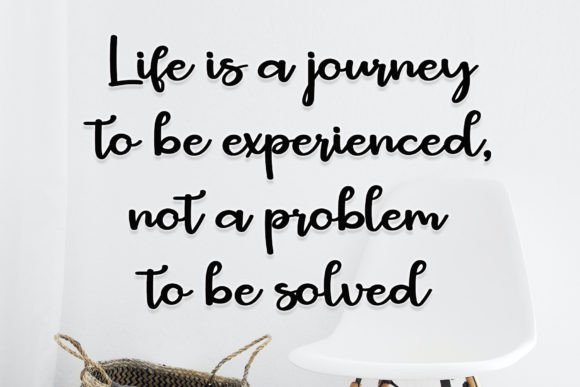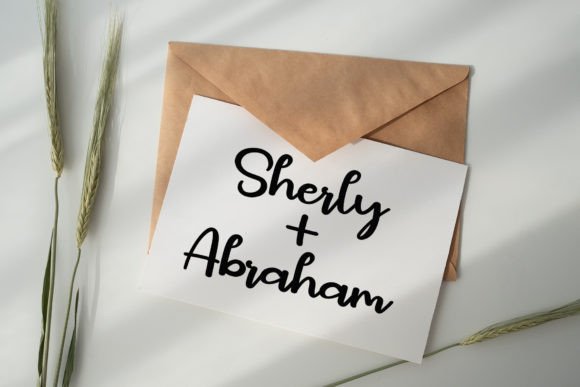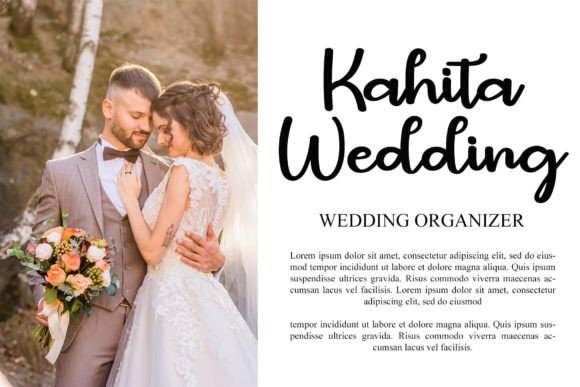
Introduction to Positive Font
Do you remember that moment when you stumbled upon the perfect font for your creative project? The one that perfectly captures the essence of your idea and elevates your design to the next level? For designers, finding that one special font can be a game-changer. It’s the difference between a good design and an amazing one.
One such font that has been making waves in the design community is the Positive Font. This signature font is a treasure trove for designers, offering a perfect blend of simplicity and style. With its easy-to-read letters and a subtle handwritten feel, it’s perfect for a variety of design applications, from greeting cards to social media headers.
Whether you’re working on a high-quality design resource or looking for a free download to enhance your creative project, the Positive Font is an excellent choice. Its transparent background and versatility make it a valuable asset for designers who want to add a touch of elegance and sophistication to their work.
Key Features of Positive Font
- High-quality design resource ideal for creative projects and branding
- Comes with a transparent background, allowing for easy customization and flexibility
- Available in a range of sizes, from 16px to 64px, to suit various design needs and applications
- Features a high resolution of 300 DPI, ensuring crisp and clear text display even at larger sizes
- Unique, modern design that adds a touch of sophistication and elegance to any creative project
Honest Review: Positive Font
I recently came across the Positive Font, and I must say, it’s a fantastic addition to any designer’s toolkit. As a design resource, it offers a high quality, modern aesthetic that’s perfect for a wide range of creative projects.
One of the standout features of Positive Font is its versatility. It comes in a variety of weights and styles, making it easy to customize for different design needs. I particularly appreciate the transparent background option, which allows for seamless integration into complex compositions.
Here are some of the things that work well:
- High-quality design that’s perfect for print or digital projects
- Wide range of weights and styles for customization
- Transparent background option for easy integration
Of course, no font is perfect, and Positive Font has a few limitations:
- Some users may find the font a bit too modern or trendy
- Limited support for certain languages or character sets
Overall, I’m impressed with Positive Font. It’s a great resource for designers looking to add a touch of modernity to their projects. With its high quality design and versatility, it’s definitely worth checking out.
Positive Font
The Positive Font is a high-quality design resource that can elevate your creative project to the next level. With its transparent background and unique style, it’s perfect for adding a touch of sophistication to your designs.
The Positive Font is perfect for a variety of creative projects, including:
- Branding and logos
- Posters and flyers
Tips for Getting the Most Out of Positive Font
To get the most out of the Positive Font, follow these tips:
- Use it in combination with other high-quality design resources.
- Experiment with different font sizes and styles to find the perfect look for your project.
- Use the transparent background feature to create a seamless design.
Alternatives to Positive Font
Great Vibes is a high-quality, elegant script font perfect for creative projects that require a touch of sophistication. It’s ideal for use on invitations, wedding stationery, and other design elements where a beautiful, handwritten look is desired. Great Vibes features a transparent background and is available for free download, making it a great alternative to Positive Font for designers working on a budget.